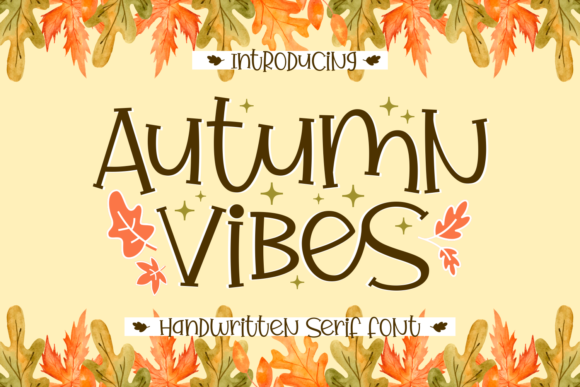
Welcome to the enchanting world of Autumn Vibes, a serif font family that captures the spirit of fall with its playful and elegant charm. Designed by the creative genius, Dani of 7NTypes, this font collection is a breath of fresh air for bloggers, designers, and anyone seeking a touch of whimsy in their digital creations.
Immerse yourself in the warm and inviting aura of Autumn Vibes, a font that dances across the screen, carrying your words with grace and flair. Its curves and strokes evoke the rustling of autumn leaves, the crispness of the morning air, and the cozy ambiance of a crackling fireplace. With Autumn Vibes, you'll elevate your blog posts, social media captions, and digital designs to new heights of artistry.
With Autumn Vibes, you have the power to transform your online presence into a visual symphony. This font family offers a diverse range of styles, from the delicate Thin to the bold and confident Black, ensuring that you'll find the perfect fit for your creative vision. Whether you're crafting a personal blog, promoting your business, or designing captivating social media posts, Autumn Vibes will be your trusted companion, adding a touch of magic to every word you write.
Autumn Vibes is more than just a font; it's an experience. Each character is meticulously crafted to capture the essence of autumn, from the vibrant hues of changing leaves to the gentle sway of tree branches in the wind. As your fingers dance across the keyboard, you'll feel the crispness of autumn air invigorating your senses, inspiring you to create content that resonates with your audience.
With Autumn Vibes, you'll discover a font that effortlessly enhances the readability of your written words. Its carefully balanced letterforms and generous kerning ensure that your messages are conveyed with clarity and impact. Whether you're crafting lengthy blog posts, eye-catching headlines, or engaging social media posts, Autumn Vibes ensures that your words command attention and leave a lasting impression.